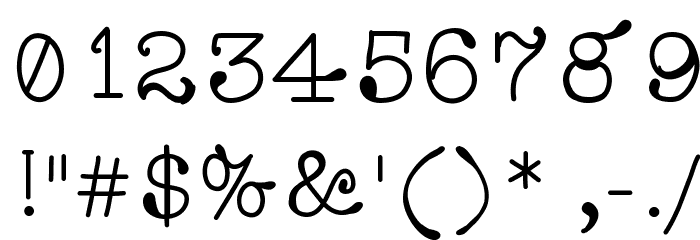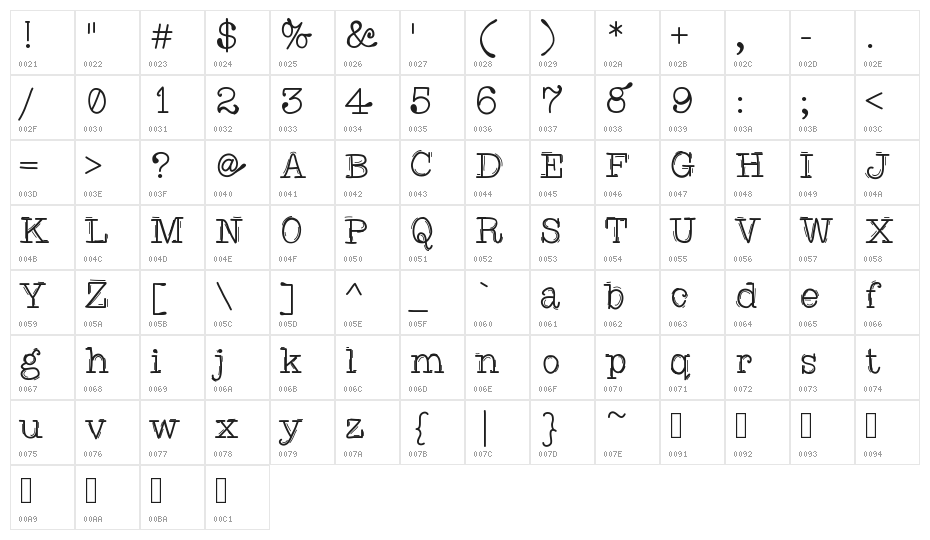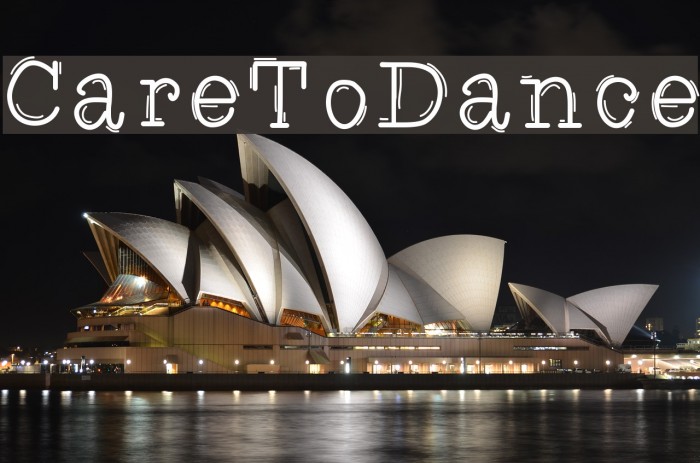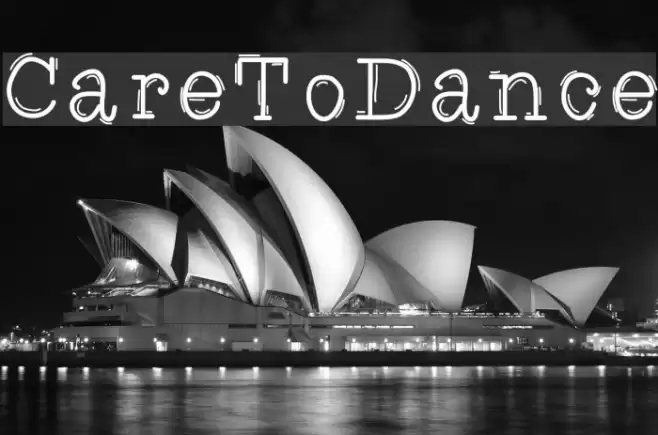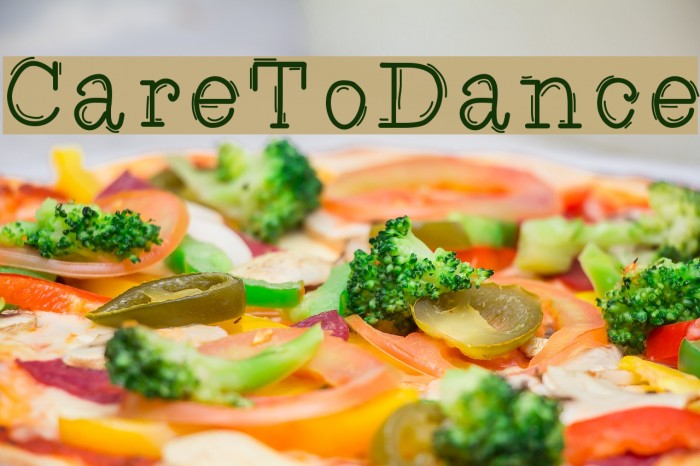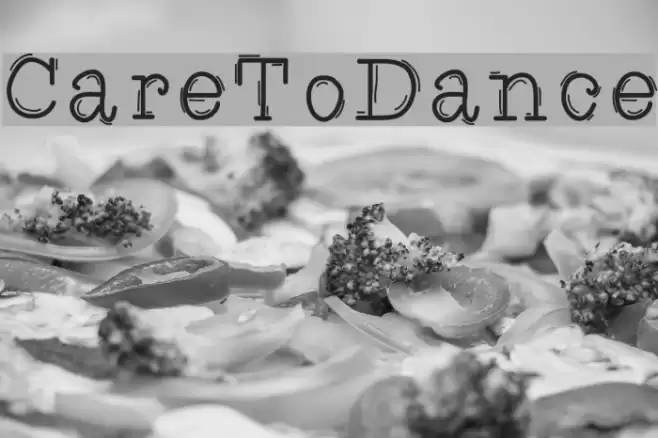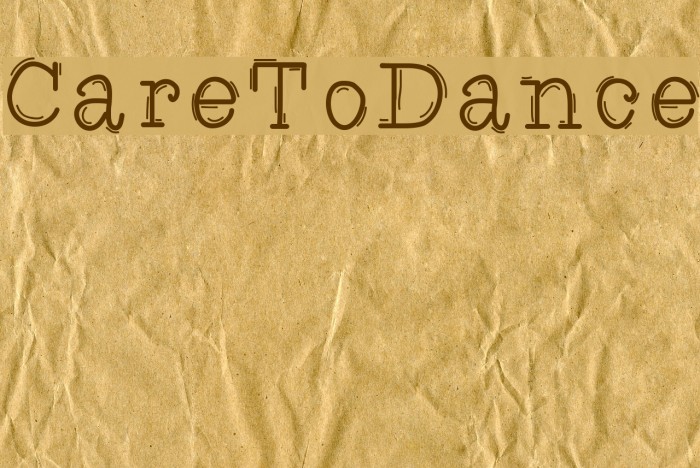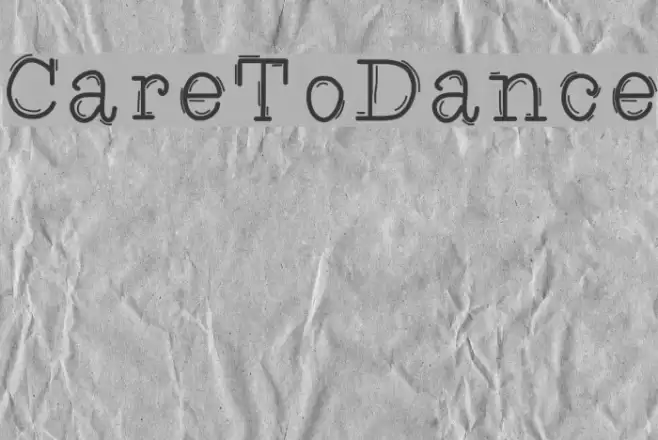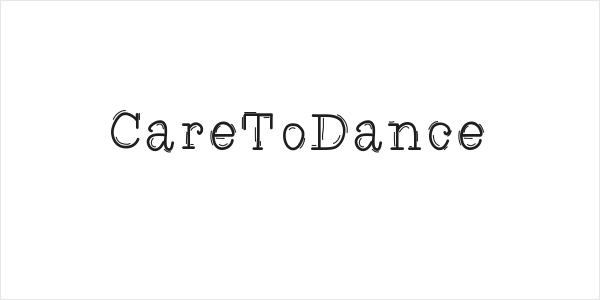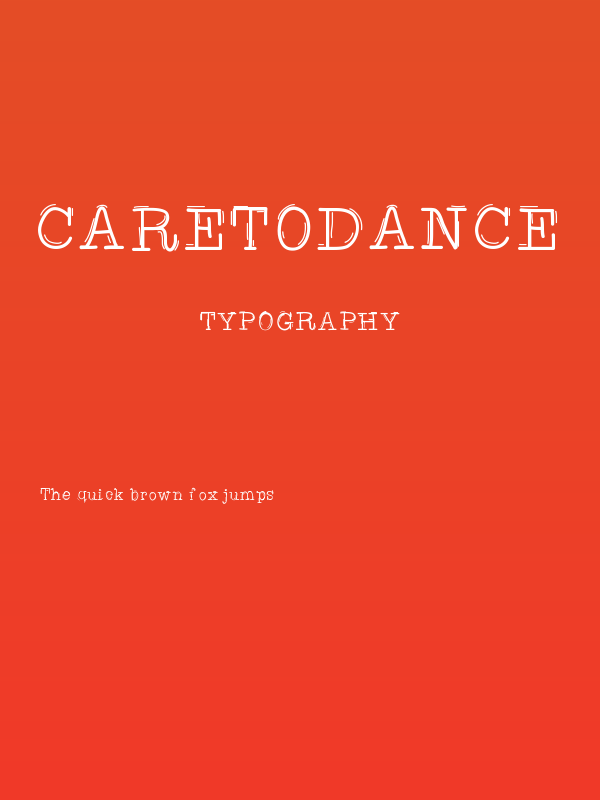
CareToDance Font
CareToDance Description
This font features a unique blend of classic serif elements with a modern twist. Each character is adorned with subtle decorative flourishes, giving it a playful yet sophisticated appearance. The uppercase letters are bold and commanding, while the lowercase letters maintain a consistent style with slight variations in stroke width. The numerals are distinct and easily readable, with a touch of elegance that complements the overall design. Special characters are creatively styled, adding to the font's versatility. This font is perfect for projects that require a touch of whimsy without sacrificing readability.